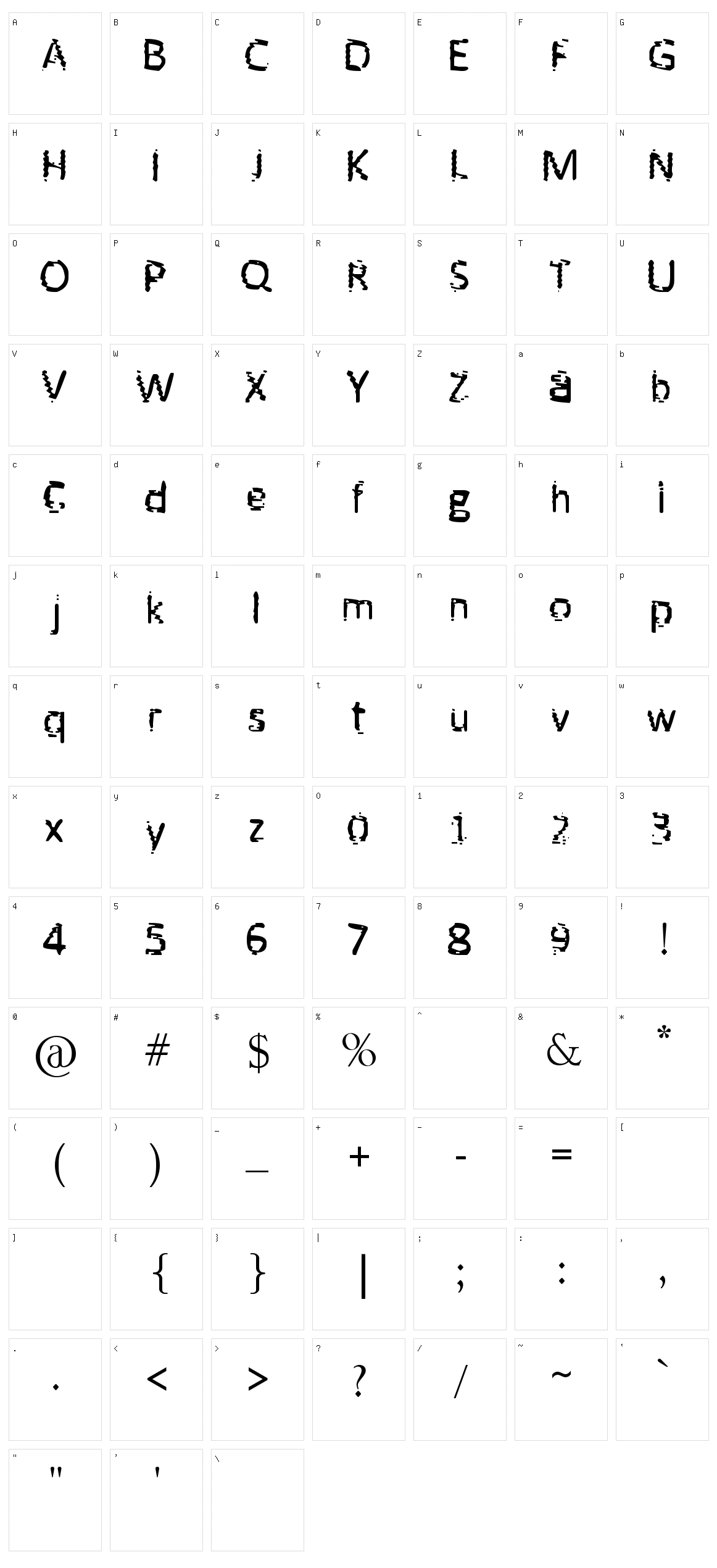
The free font Unknown is carefully designed by Sinna, showcasing a thoughtful balance of creativity and usability and falls under the Distorted font style. When you download the ZIP file, it contains only 15.41 KB of font files, making it lightweight and quick to download. Please review the license details below to understand permitted usage and distribution rights. If license information is not available, we recommend using this font for personal projects only or contacting the author directly for commercial usage permissions.